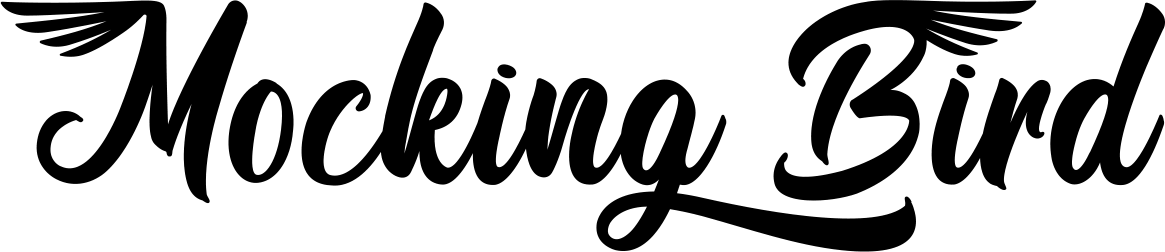
Mocking Bird Font
Mocking Bird font is one of the fancy font styles that we suggest be included in your download list. Because this script font has amusing uppercase letters and looks like a bird’s wings, you can use it in designing the logos of different fashion and makeup brands. Also, this hand-written font puts your audience in an excellent mood to join night parties.